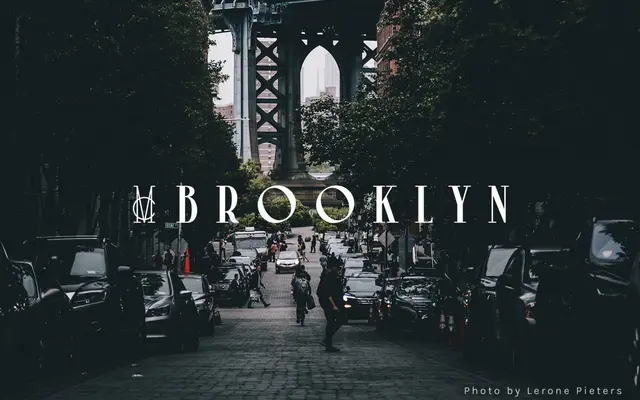
MC Brooklyn
A single-weight display typeface from McLetters styled around a loose urban aesthetic.
Marketed with the tagline 'city font with city vibes', MC Brooklyn is a display face available in one weight with no italics or condensed cuts. Licensing options cover desktop, e-pub, app and webfont use. The product page offers little detail on the design beyond its urban positioning.
Described as a 'city font with city vibes', suggesting a stylised display typeface with urban character rather than a neutral text face.